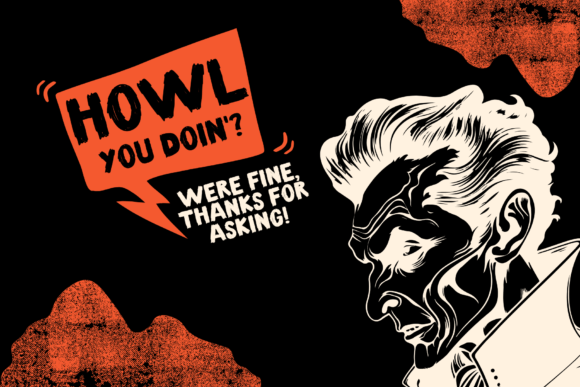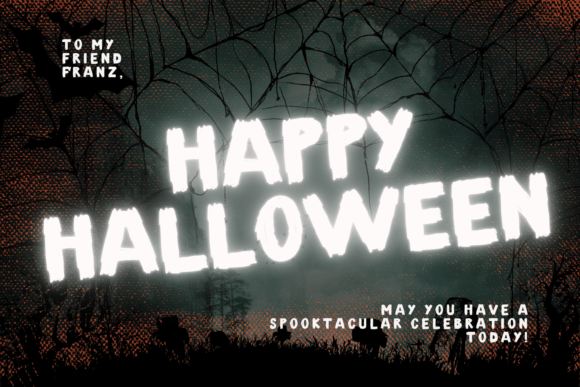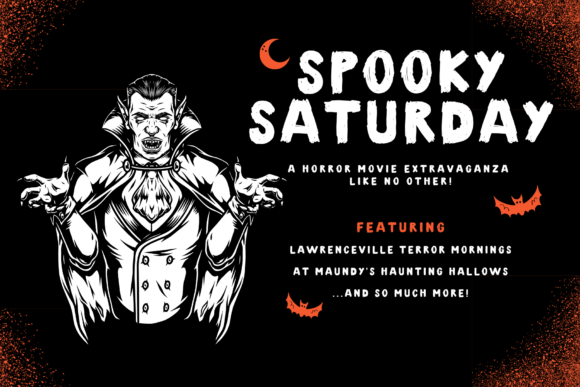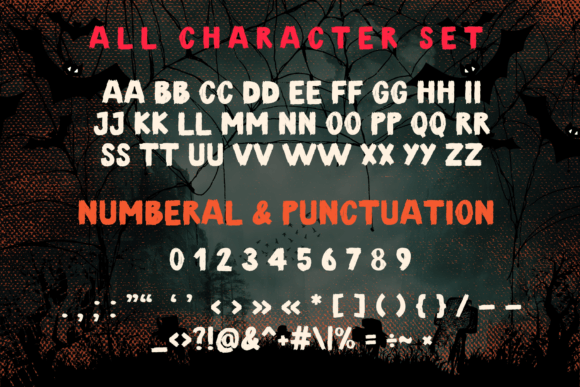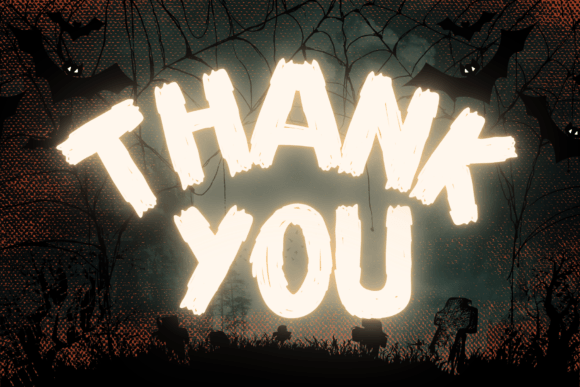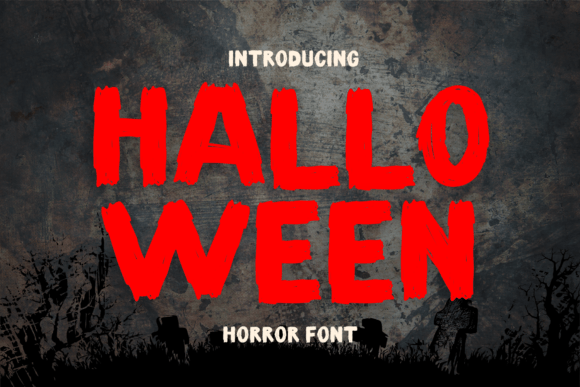
Unleash the Spoirit of Halloween with the Spooky-Fun Halloween Font
Halloween is just around the corner, and what better way to get into the spirit than with a font that’s as playful and eerie as the holiday itself? Look no further than the Halloween Font, a cool and display-worthy typeface that’s perfect for adding a touch of whimsy and authenticity to all your favorite projects.
What is the Halloween Font?
The Halloween Font is a specially designed typeface that’s meant to evoke the fun and spookiness of the Halloween season. With its unique and quirky letterforms, this font is sure to add a touch of personality to any design. Whether you’re working on a blog post, logo, branding materials, ads, invitations, greeting cards, planners, photo albums, decorations, or more, the Halloween Font is the perfect choice.
Key Features of the Halloween Font
- Playful and Authentic: The Halloween Font embodies the playful and authentic spirit of Halloween, making it perfect for designers and crafters who want to create spooky-fun designs.
- Versatile: This font is versatile and can be used for a wide range of projects, from digital designs to print materials.
- High-Quality: This font is designed with high-quality and clarity in mind, ensuring that your designs look professional and polished.
Why Choose the Halloween Font?
So why choose the Halloween Font over other fonts? For starters, its unique and quirky letterforms are sure to grab attention and add a touch of personality to your designs. Additionally, the font’s playful and authentic vibe makes it perfect for Halloween-themed projects. Whether you’re a designer, crafter, or DIY enthusiast, this font is sure to become a go-to in your toolkit.
- Halloween Invitations: Create spooky-fun invitations for Halloween parties, trick-or-treat events, or haunted houses.
- Decorations: Use the Halloween Font to create festive decorations, such as banners, garlands, or signs.
- Blog Posts: Add a touch of Halloween spirit to your blog posts with the Halloween Font.
- Social Media: Use the font to create spooky-fun social media graphics, such as Halloween-themed Facebook posts or Instagram stories.
- Experiment with Colors: Try pairing the Halloween Font with bold and bright colors to create a spooky-fun design.
- Mix and Match: Combine the Halloween Font with other fonts to create a unique and eye-catching design.
- Play with Sizes: Experiment with different font sizes to create visual interest and hierarchy in your design.